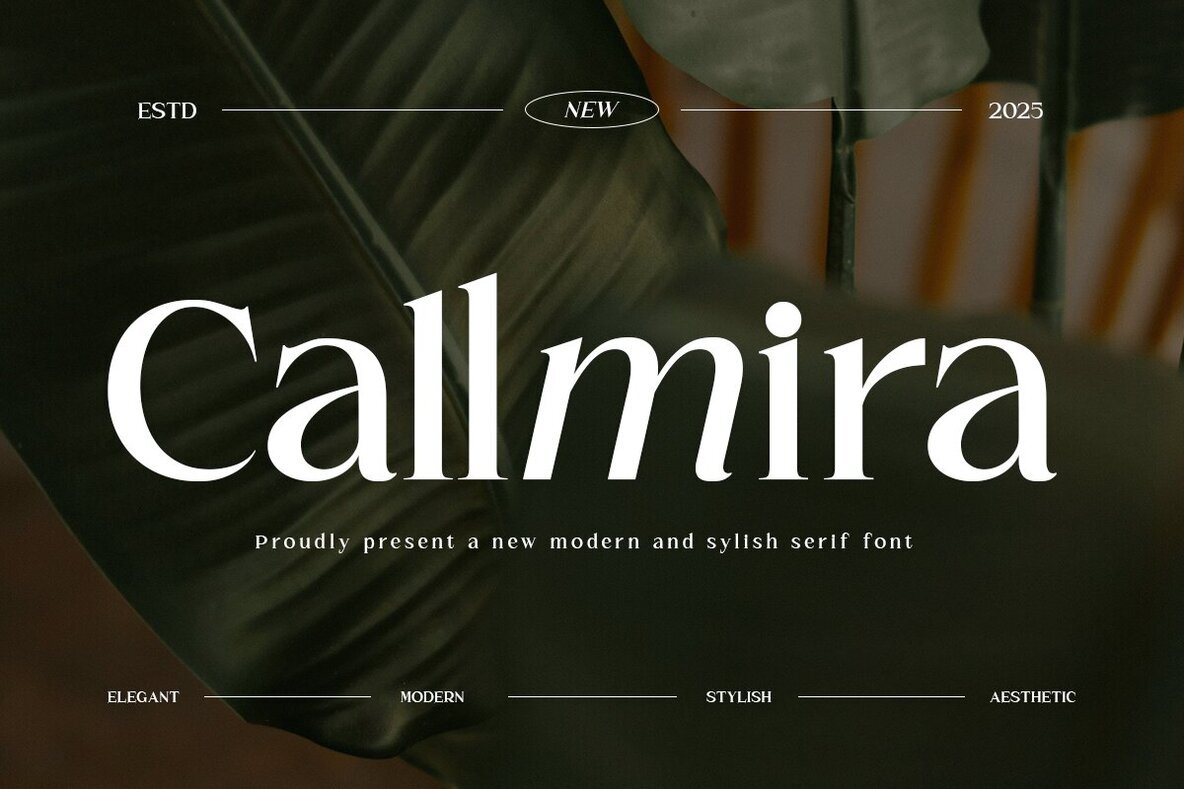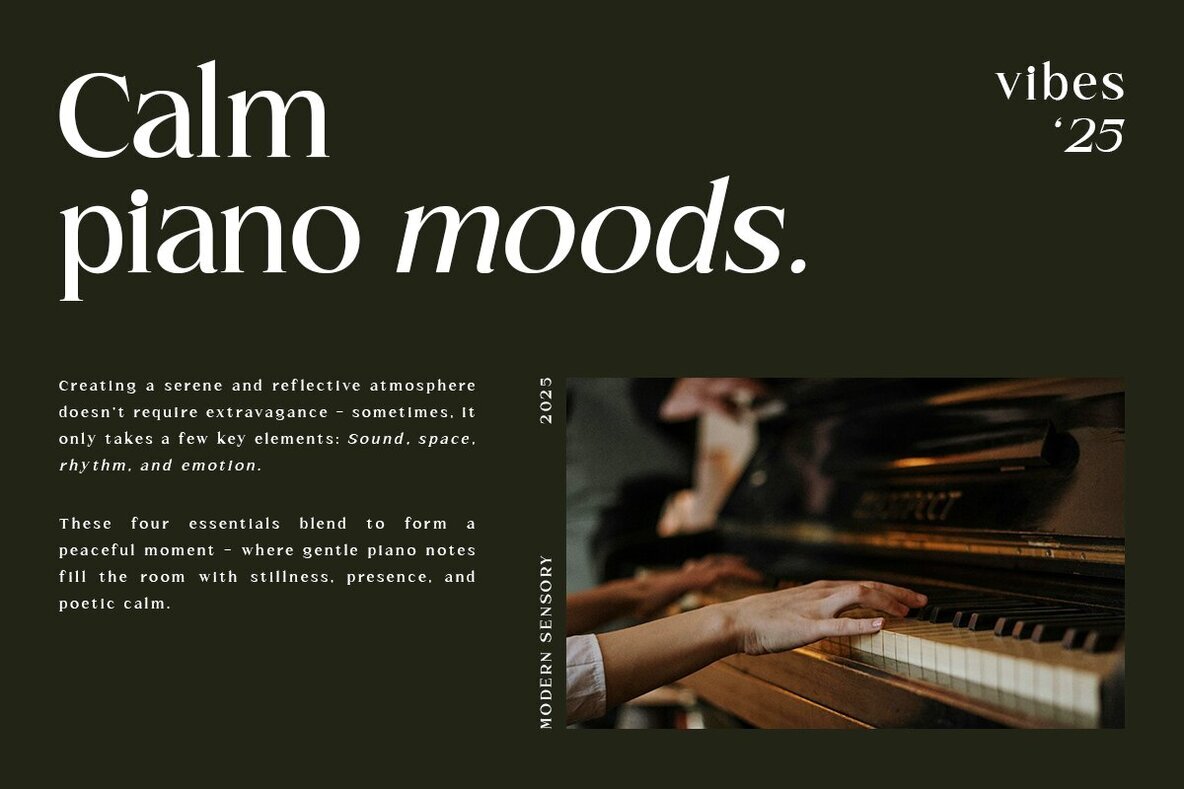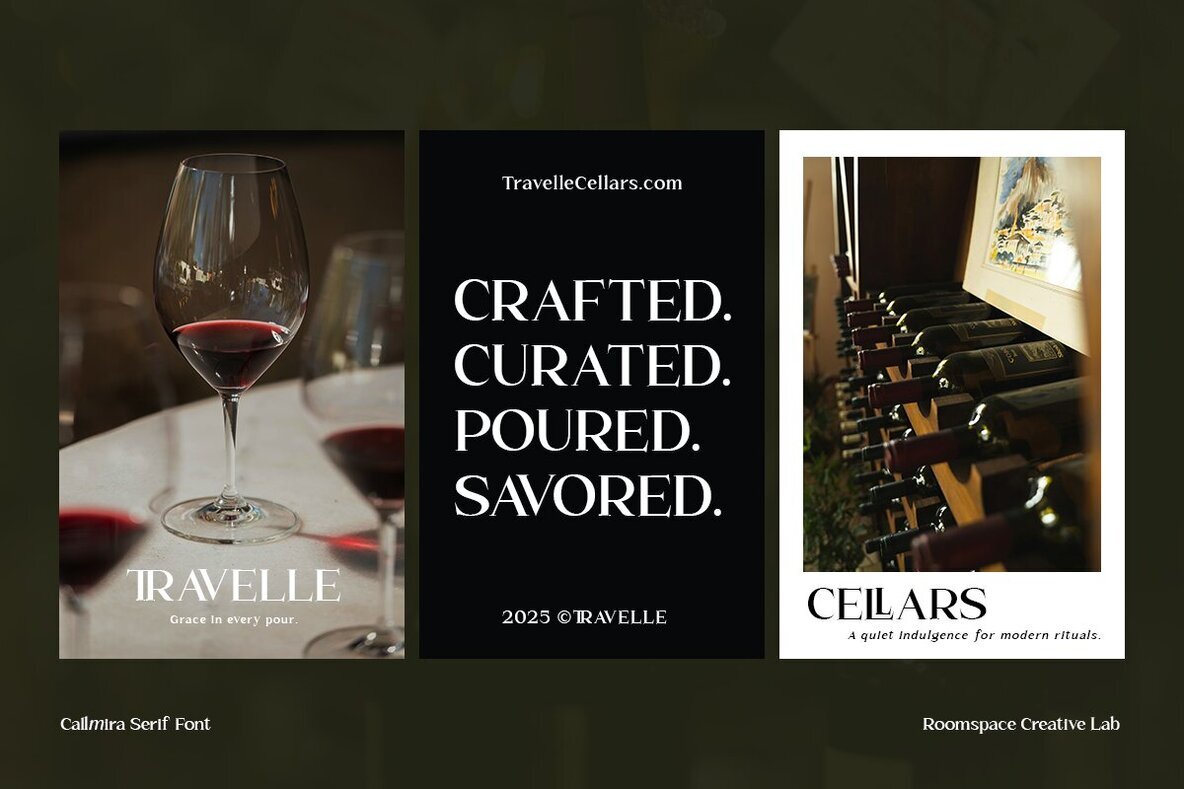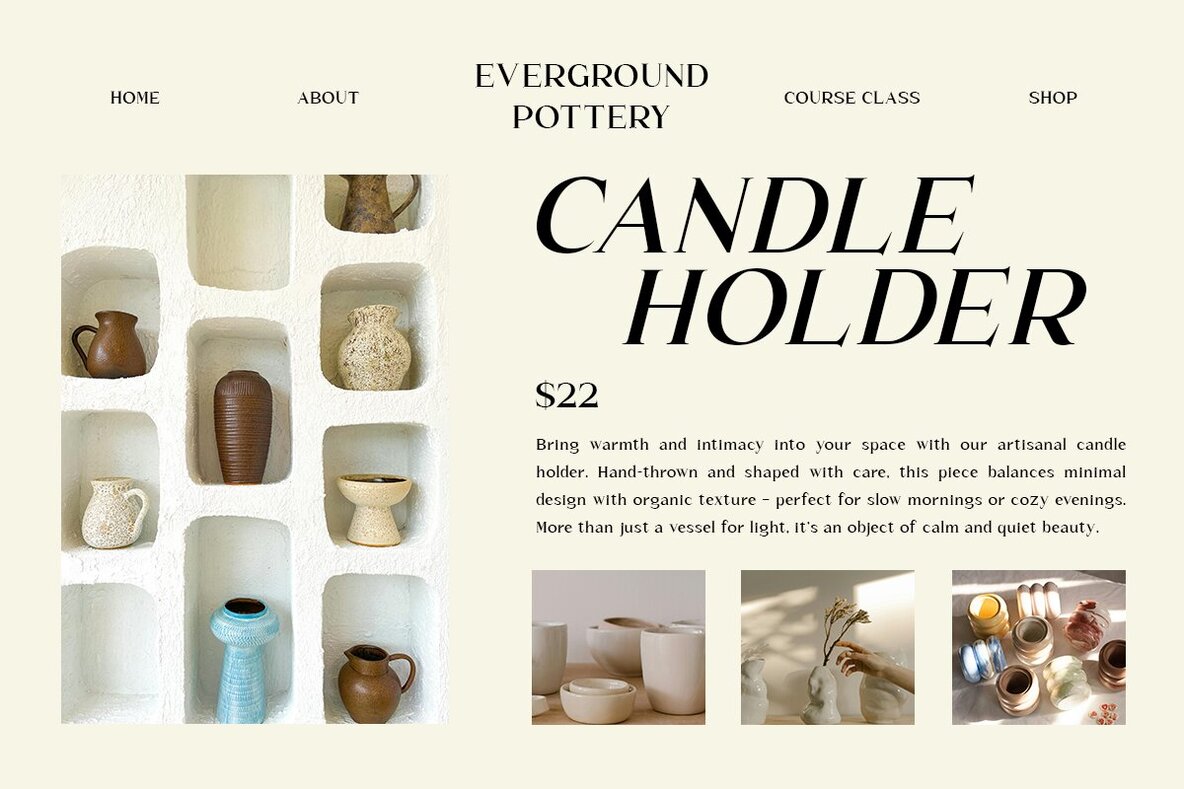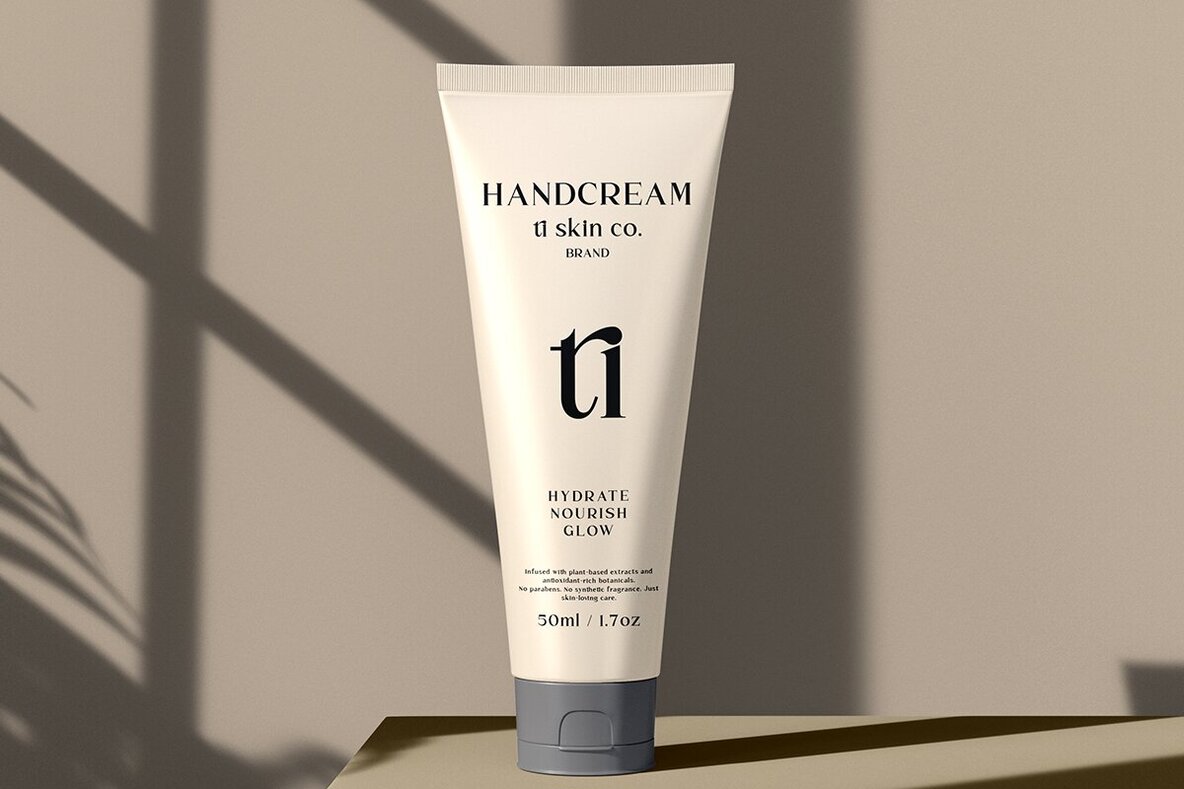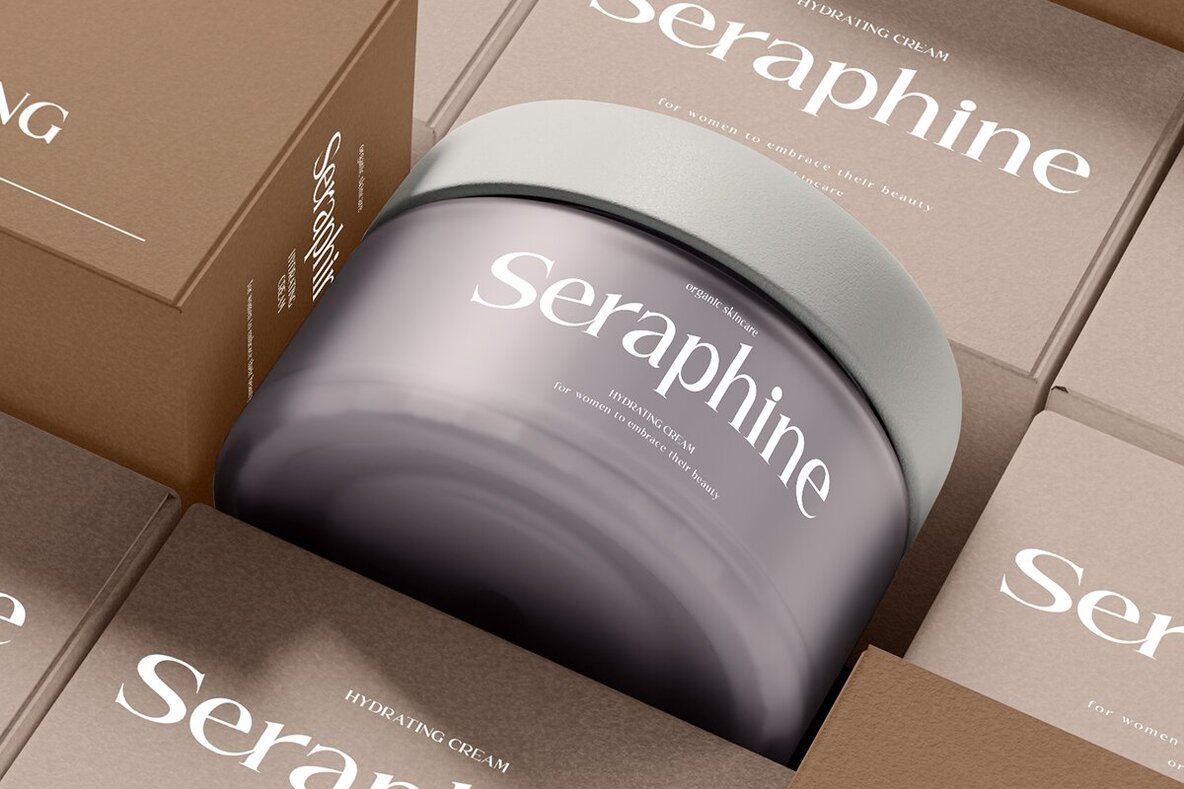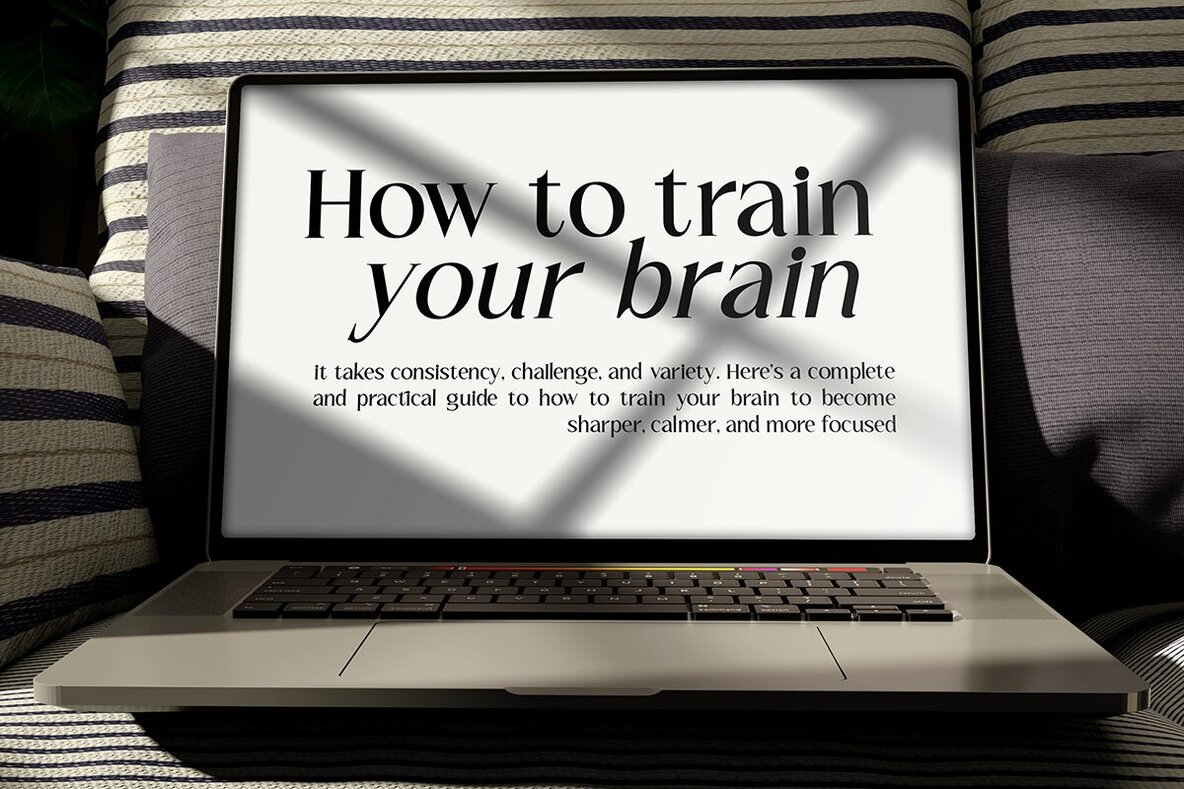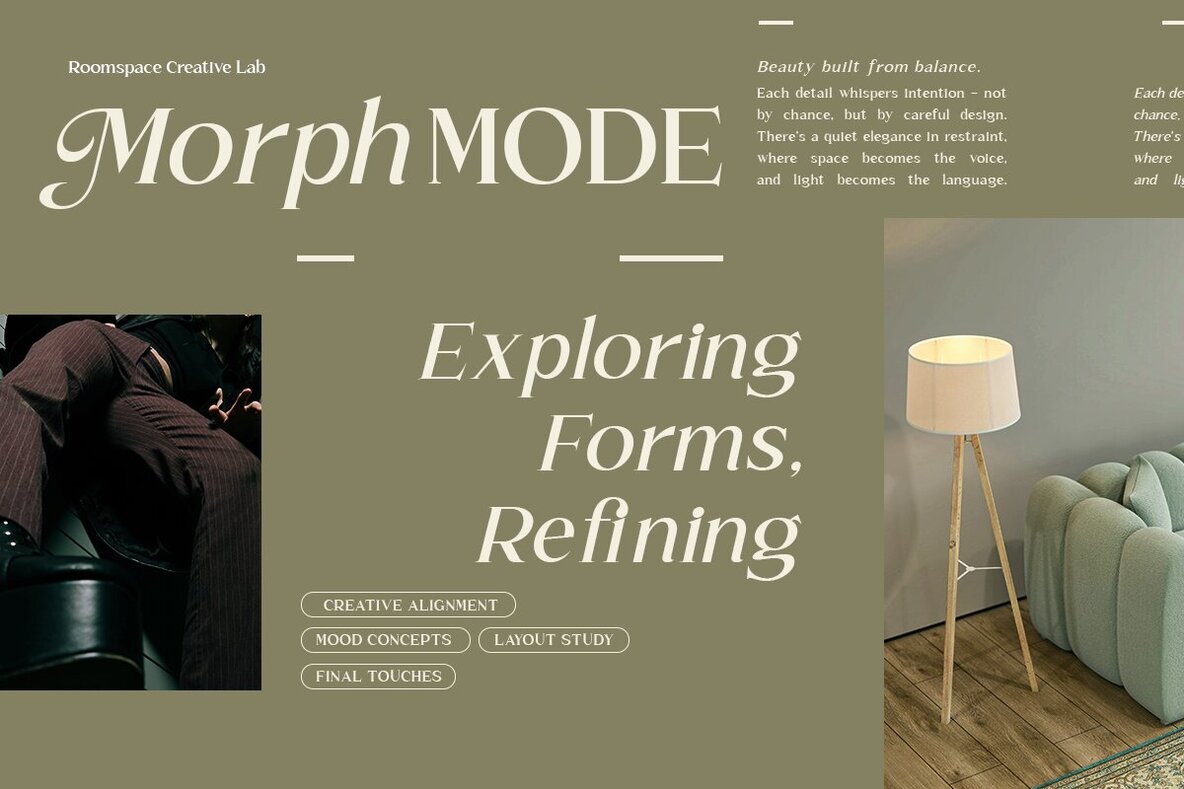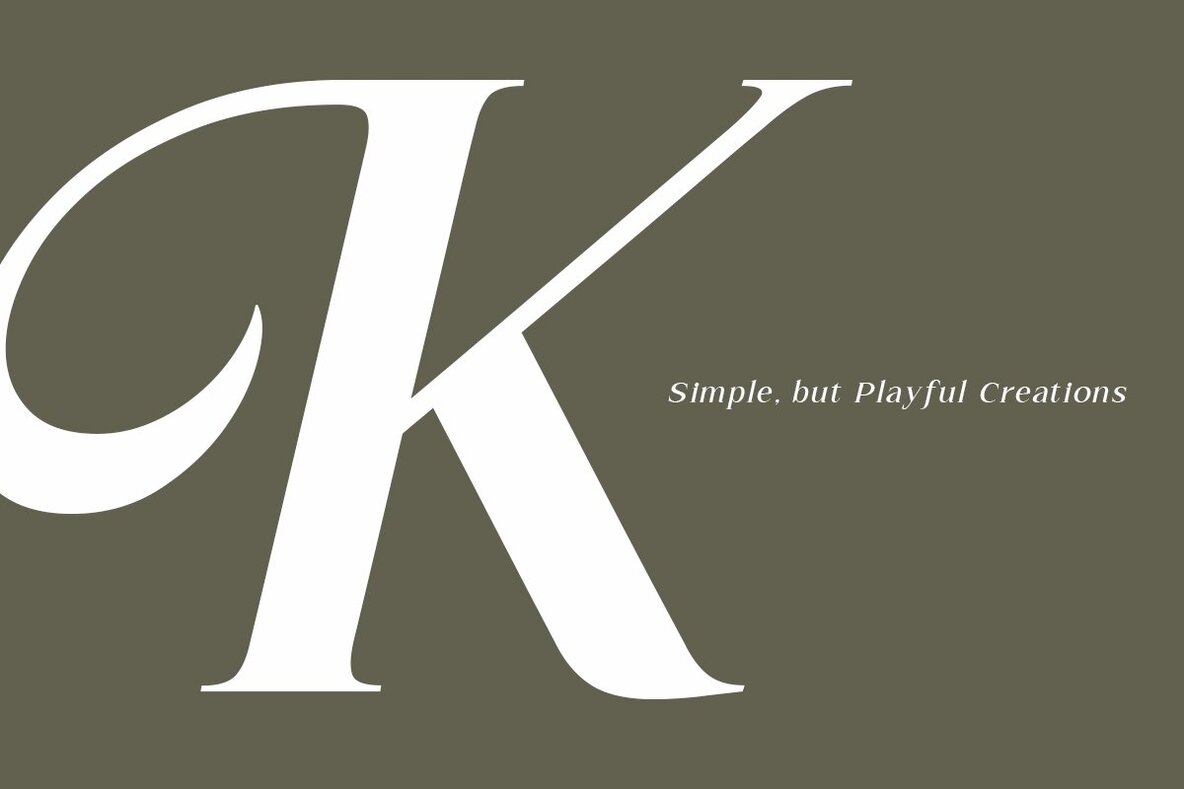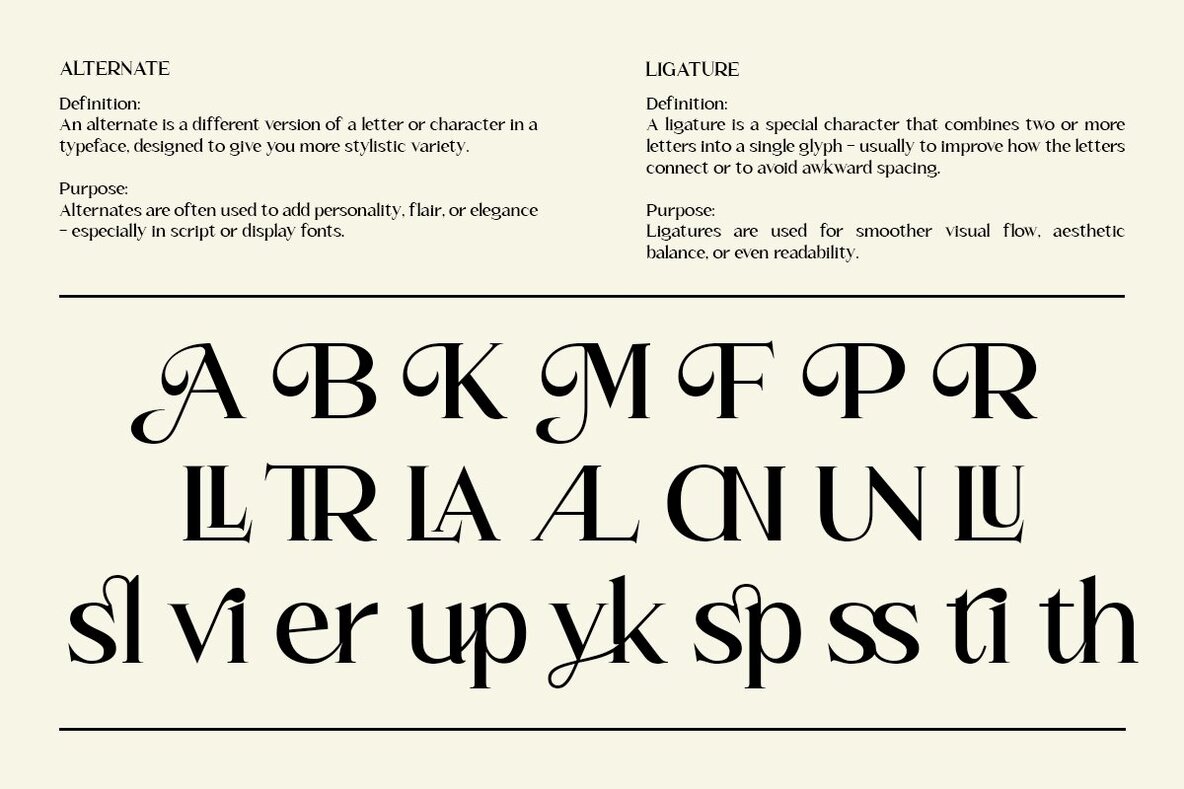
Callmira Font
Callmira is a serif font that gracefully marries modernity with elegance, creating an aura of sophistication ideal for diverse design needs. Its sleek curves and refined letterforms infuse a luxurious touch into high-end logos, fashion branding, packaging, and editorial layouts. The font’s clean, stylish appearance offers versatility, making it suitable for professional presentations and social media posts where a premium aesthetic is essential.Callmira: Modern Elegance in Serif Typography